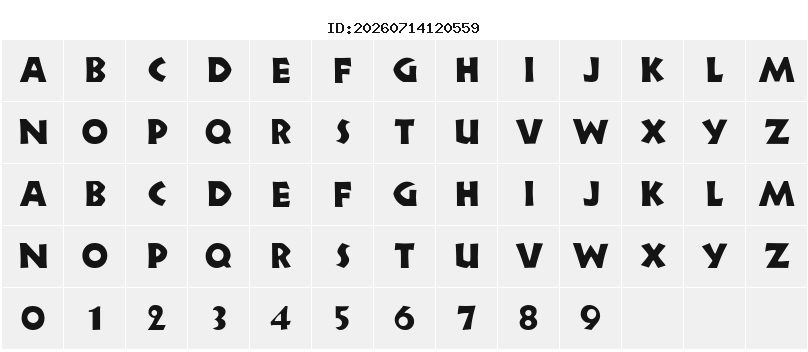
Heartwood Display SSi Preview
• Font Name: Heartwood Display SSi
• Full Font Name: Heartwood Display SSi
About Heartwood Display SSi.ttf
Heartwood Display SSi.ttf is a modern, elegant sans-serif font designed for ultimate readability and visual harmony. Perfect for branding, headlines, web design, and print materials.